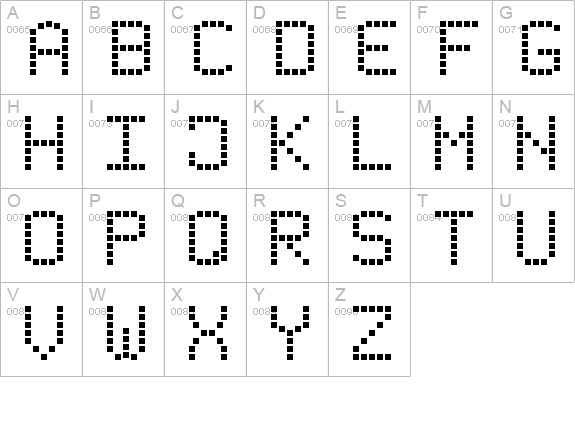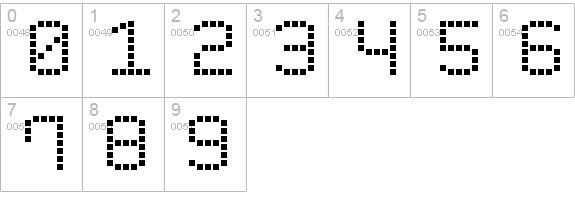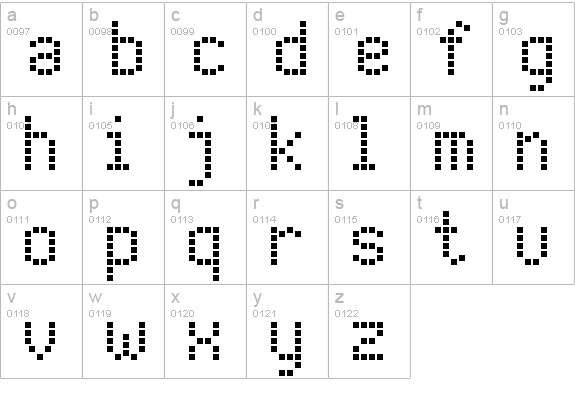
Modern LED Board-7 Font Details
Introducing the Modern LED Board-7 font, a stunning display of contemporary design and technological innovation. This font is the perfect blend of sleek modernity and nostalgic retro charm, making it an ideal choice for any project that requires a touch of sophistication and visual appeal. Featuring bold, illuminated letterforms reminiscent of classic LED signs, the Modern LED Board-7 font exudes a sense of vibrant energy and dynamic movement. Each character is meticulously crafted to emulate the distinctive glow and sharp edges of illuminated displays, creating a captivating visual experience that is sure to captivate your audience. What sets the Modern LED Board-7 font apart is not only its impeccable design but also its accessibility. This remarkable font is freely available to download at FontsMarket.com, a trusted online resource for quality fonts. With just a few clicks, you can bring this cutting-edge font into your creative projects, enhancing their visual impact and adding a touch of modernity to your designs. Whether you're designing eye-catching posters, attention-grabbing advertisements, or creating captivating digital displays, the Modern LED Board-7 font is your secret weapon for making a lasting impression. Its versatility allows it to shine in a variety of contexts, from futuristic sci-fi designs to retro-inspired branding. With its clean, legible letterforms and modern aesthetic, the Modern LED Board-7 font is also an excellent choice for web and app design. Its bold, attention-grabbing style ensures that your content will stand out in a crowded digital space, while its easy readability ensures a seamless user experience. Elevate your design projects to new heights with the Modern LED Board-7 font. Download it for free at FontsMarket.com and let its captivating glow and modern charm illuminate your creative vision. With this font in your toolkit, you'll have the power to create visually stunning designs that leave a lasting impact on your audience.